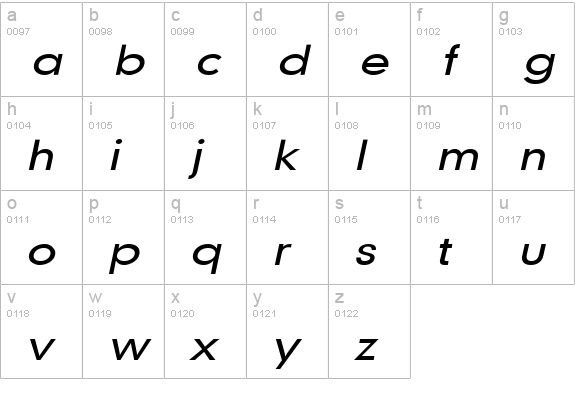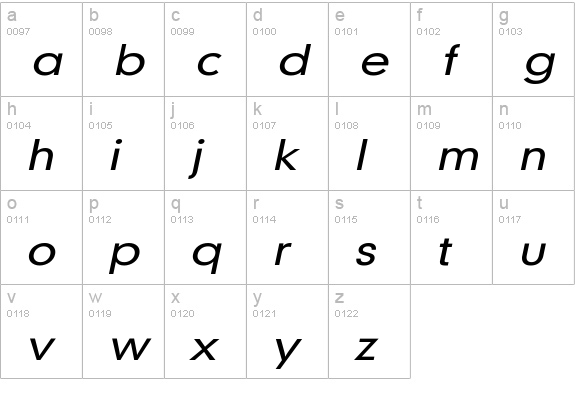
Geo 579 Wide Italic is a distinctive, extended-width, italic variant in the Geo typeface family \xE2\x80\x94 well suited to design and typography projects.
Introducing Geo 579 Wide Italic font, a sleek and modern typeface that exudes elegance and sophistication. With its wide letterforms and stylish italic slant, this font is perfect for making a bold statement in your design projects. Whether you're creating eye-catching headlines or enhancing the overall look of your branding materials, Geo 579 Wide Italic font is sure to impress. And the best part? Geo 579 Wide Italic font is available for free download at FontsMarket.com. This means you can easily access this premium font without having to worry about any additional costs. Don't miss out on the opportunity to elevate your designs with the striking beauty of Geo 579 Wide Italic font – download it today and let your creativity shine!